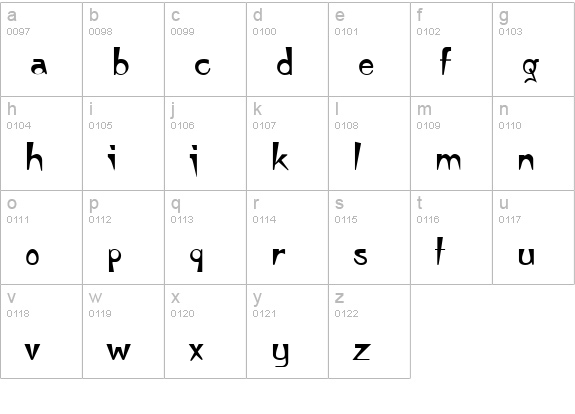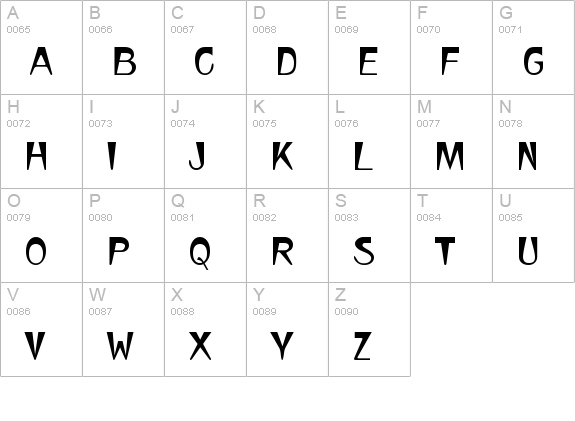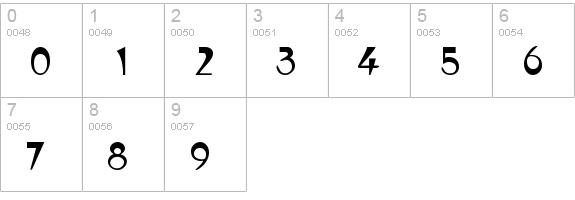
Tempura Regular Font Details
Tempura Regular is the standard, neutral variant in the Tempura typeface family \xE2\x80\x94 well suited to general body text, paragraphs, and standard typographic work.
Tempura Regular is a beautifully crafted font that exudes elegance and sophistication. With its delicate strokes and clean lines, this font adds a touch of refined charm to any design project. Whether used for headlines, logos, or body text, Tempura Regular effortlessly captures attention and conveys a sense of style. This font's versatility is another one of its standout features. It can be seamlessly integrated into various design styles, from modern and minimalistic to classic and vintage. The balanced proportions and well-defined letterforms make Tempura Regular a perfect choice for both print and digital applications. One of the best aspects of Tempura Regular is that it is freely available to download at FontsMarket.com. This means that designers and creatives can access this remarkable font without any cost or restrictions. Whether you are a professional designer or a hobbyist, Tempura Regular ensures that you have access to high-quality typography that will elevate your projects to new heights. The attention to detail in Tempura Regular is truly remarkable. Each character has been meticulously designed to create a harmonious and visually pleasing overall appearance. The smooth curves and precise angles contribute to the overall legibility and readability of the font. Tempura Regular is a font that stands the test of time. Its timeless design ensures that it will remain relevant and captivating for years to come. Download it for free at FontsMarket.com and let Tempura Regular enhance your designs with its timeless elegance and unmatched versatility.